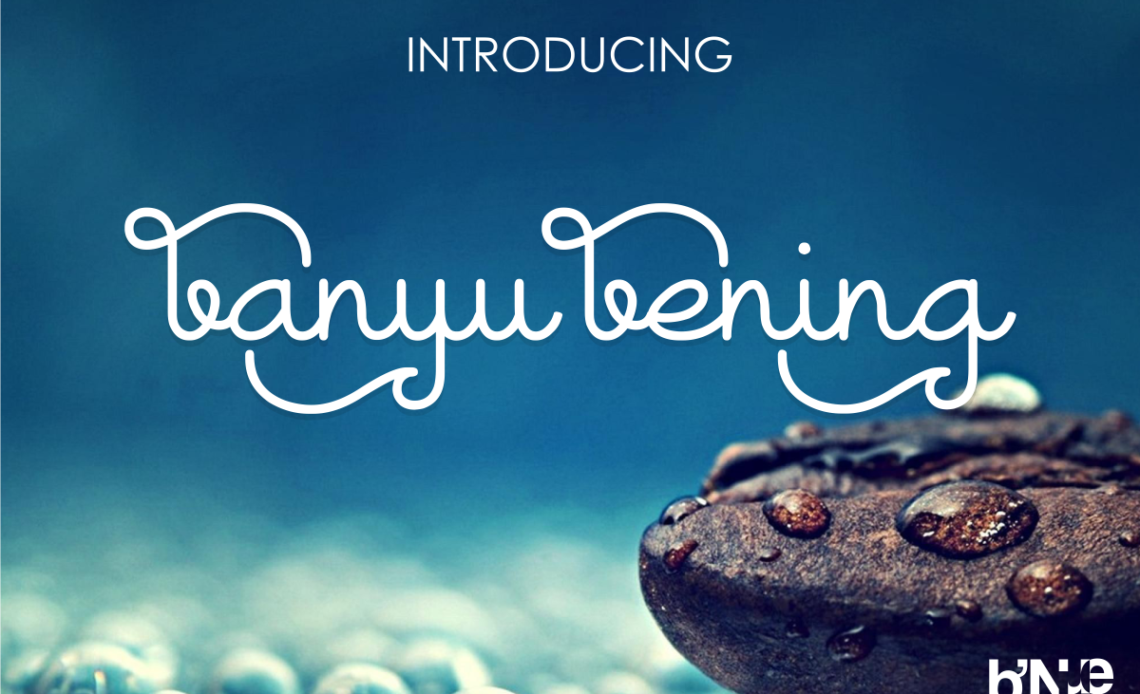
Banyu Bening Font
Introducing Banyu Bening Font - An Elegant, Handcrafted Cursive Masterpiece!
Immerse yourself in the world of typography with Banyu Bening Font, an exquisitely crafted work of art that will transport your creative visions to new heights. This display font, brainchild of the talented Blatke, is a testament to the power of ручной труд.
With its captivating swoops, curves, and monoline weight, Banyu Bening Font possesses an alluring personality, adding a touch of playfulness and elegance to your designs. It's the perfect choice for designers seeking fonts that command attention and make a lasting impression.
Be it headlines that demand notice or striking typographic statements, Banyu Bening Font is your perfect companion. Its distinctive style adds charm to posters, branding, logos, packaging, social media graphics, and more. Whether you're an experienced designer or just starting, this font is sure to become your go-to for eye-catching creations.
Experience the magic of Banyu Bening Font today and unlock a world of creative possibilities!